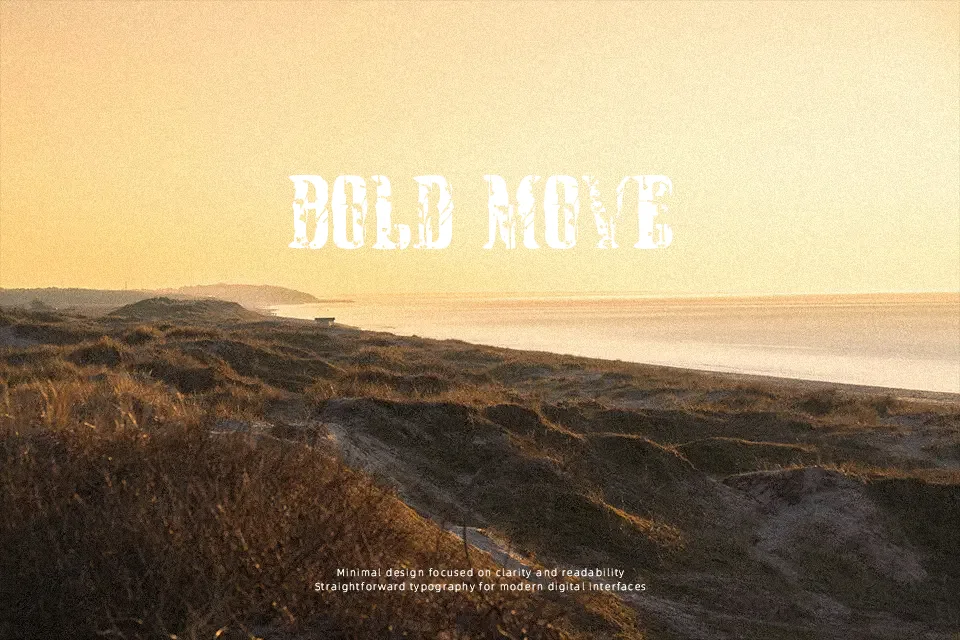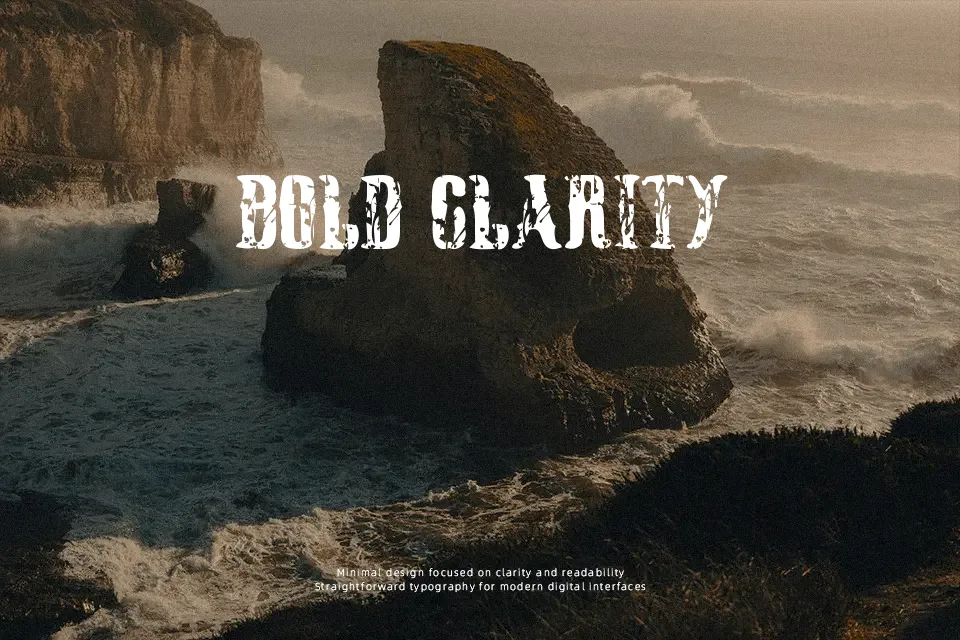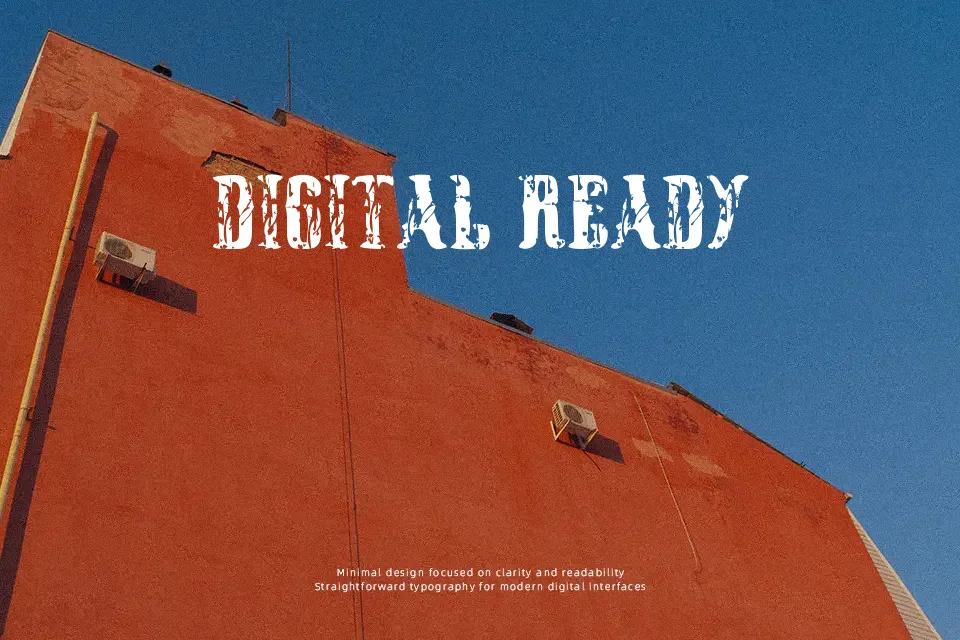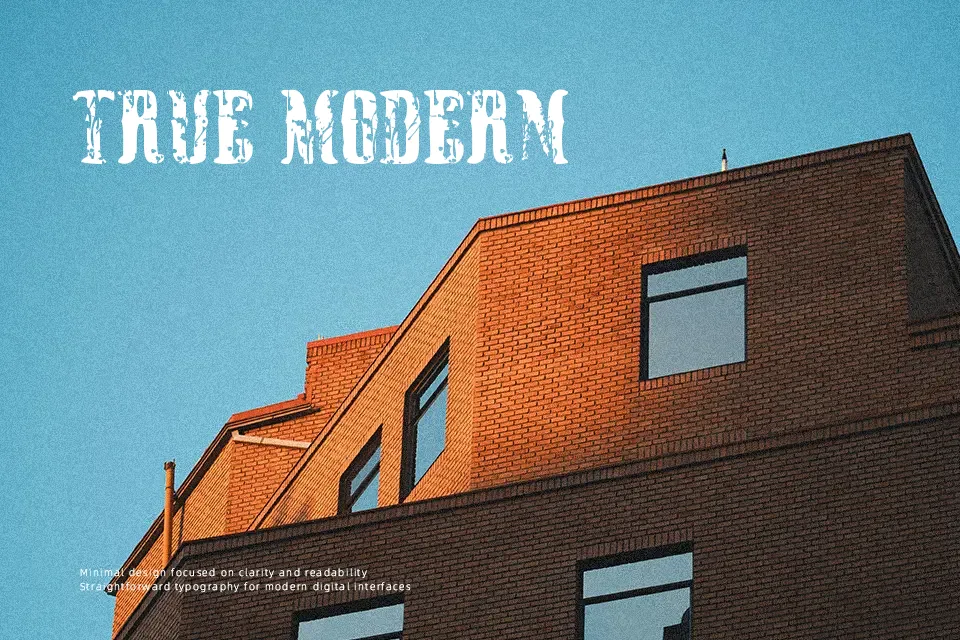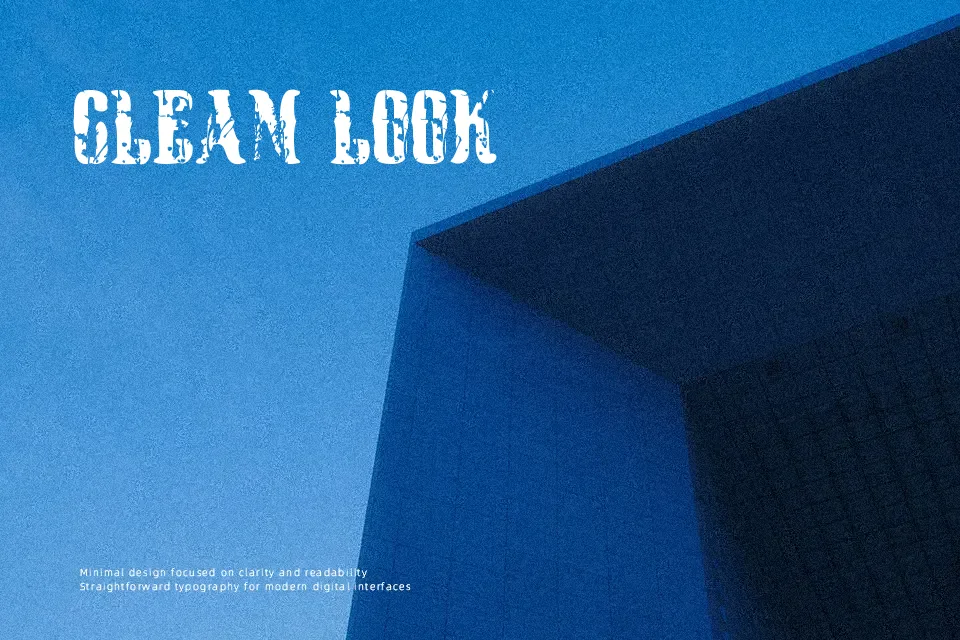
Black Rodeo Font
Black Rodeo is a heavily eroded, bold display typeface characterized by distressed textures and a weathered, stamped appearance. With thick, uneven strokes and a rugged structure, it delivers an authentic, handcrafted impact. The font exudes a rustic, grunge, and vintage western aesthetic that feels dramatic and masculine. It excels in practical scenarios like designing eye-catching event posters, gritty apparel packaging, and striking headlines for outdoor lifestyle brands. This typeface works beautifully when conveying toughness or a rebellious attitude in large-format prints. However, due to its heavy distress and irregular edges, it is not suitable for corporate body text, minimalistic digital interfaces, or applications demanding high legibility at small sizes.
Large-format event posters, rugged outdoor lifestyle branding, vintage-inspired apparel packaging, bold headline typography
Long paragraphs or dense body text, clean corporate identity designs, small-scale digital interfaces
Perfect for advertising, branding, and headline, with a bold and decorative style.